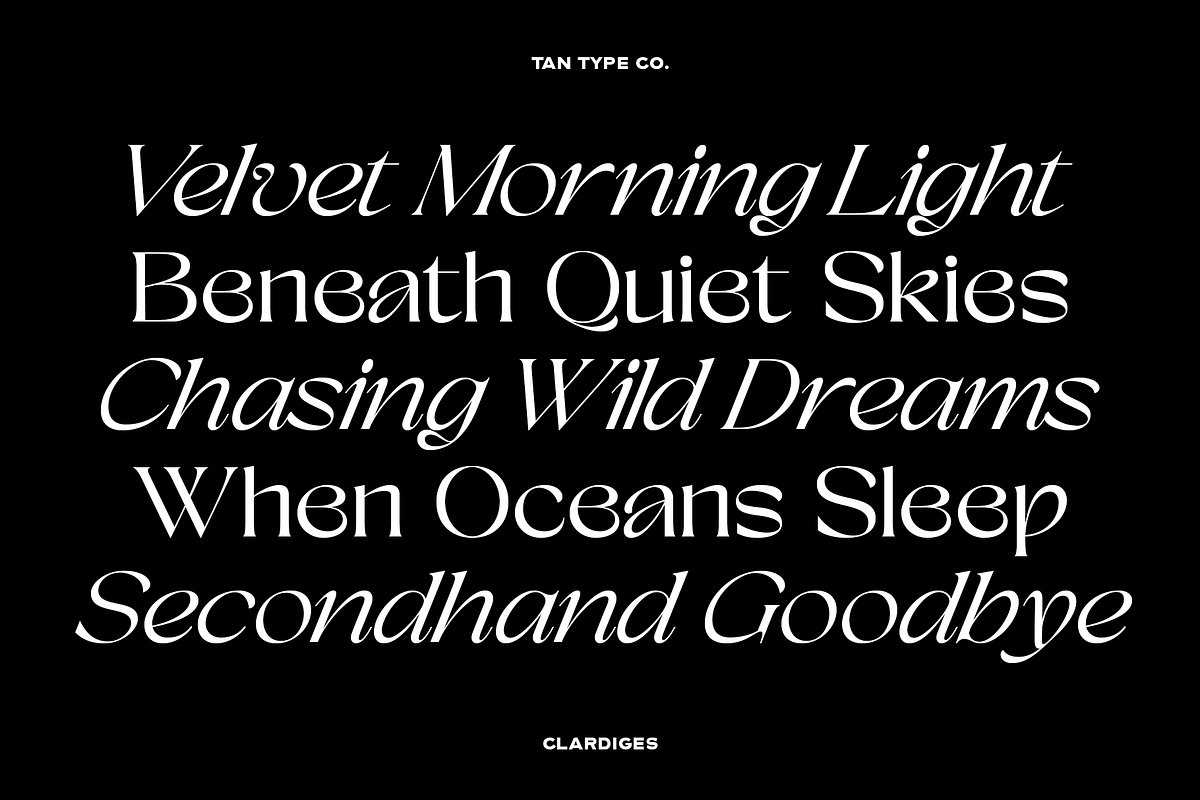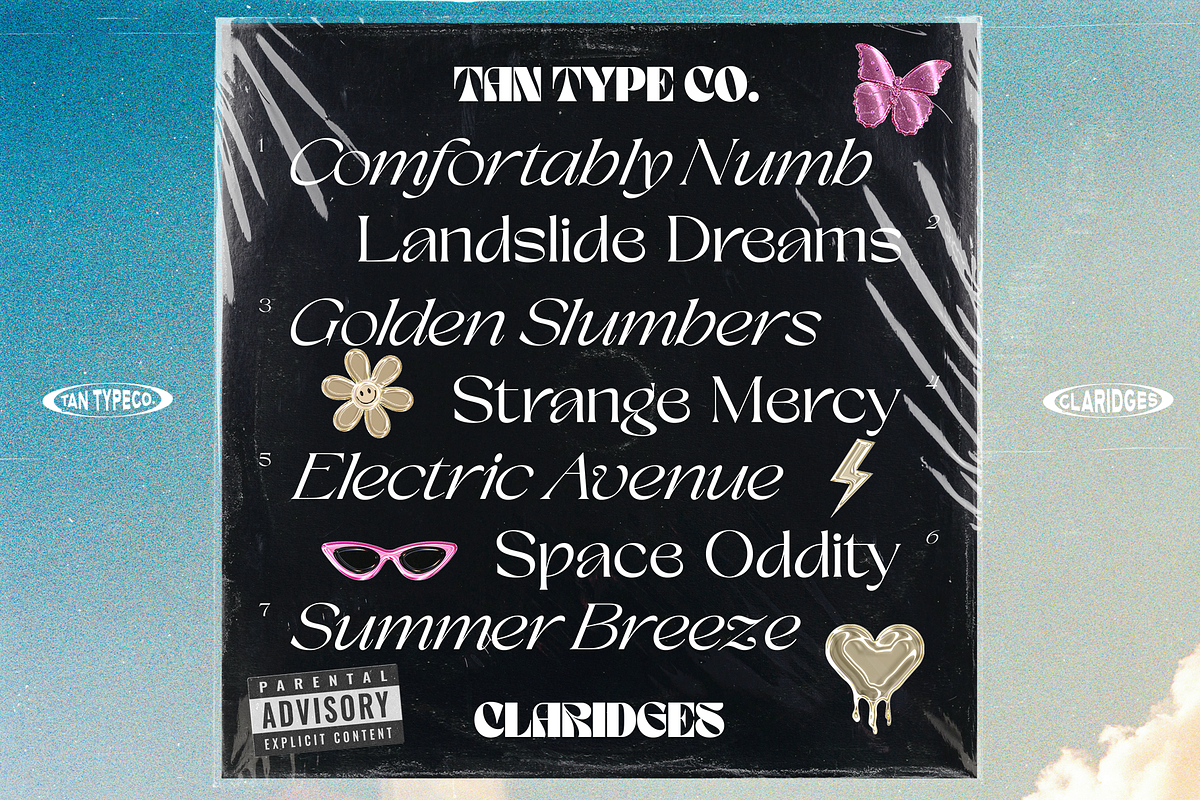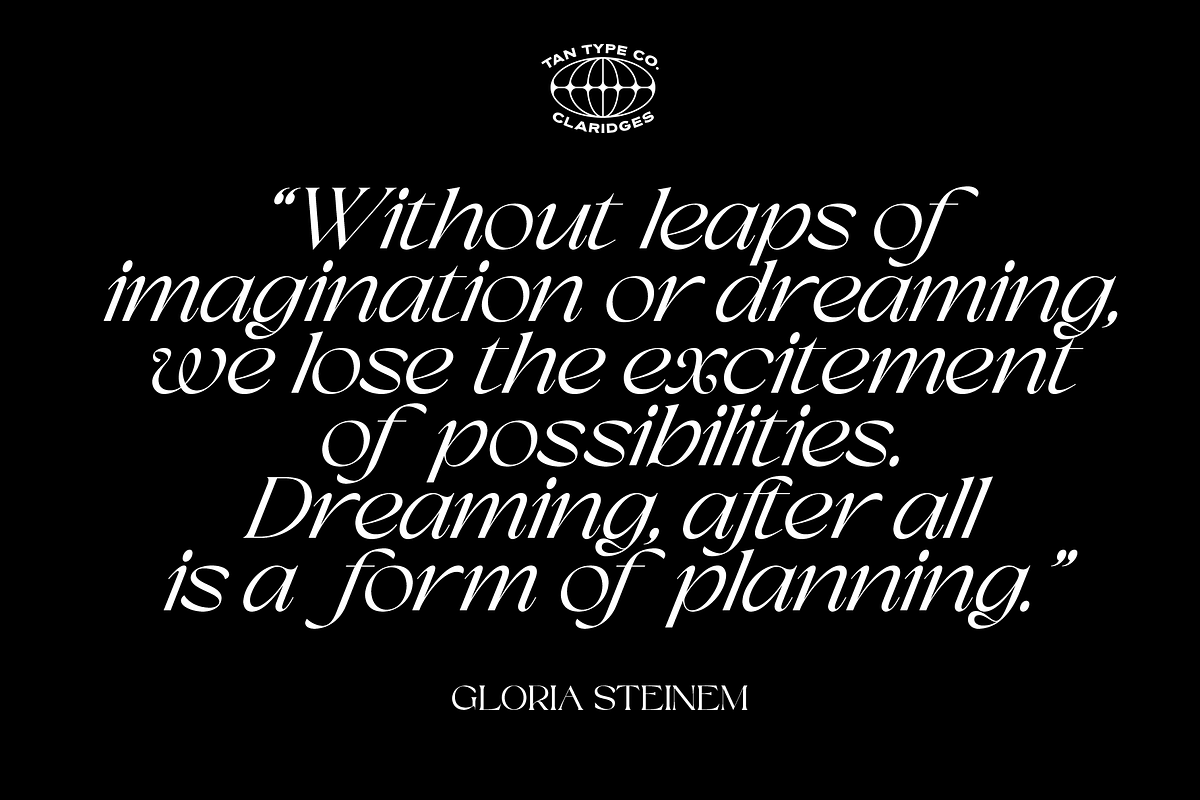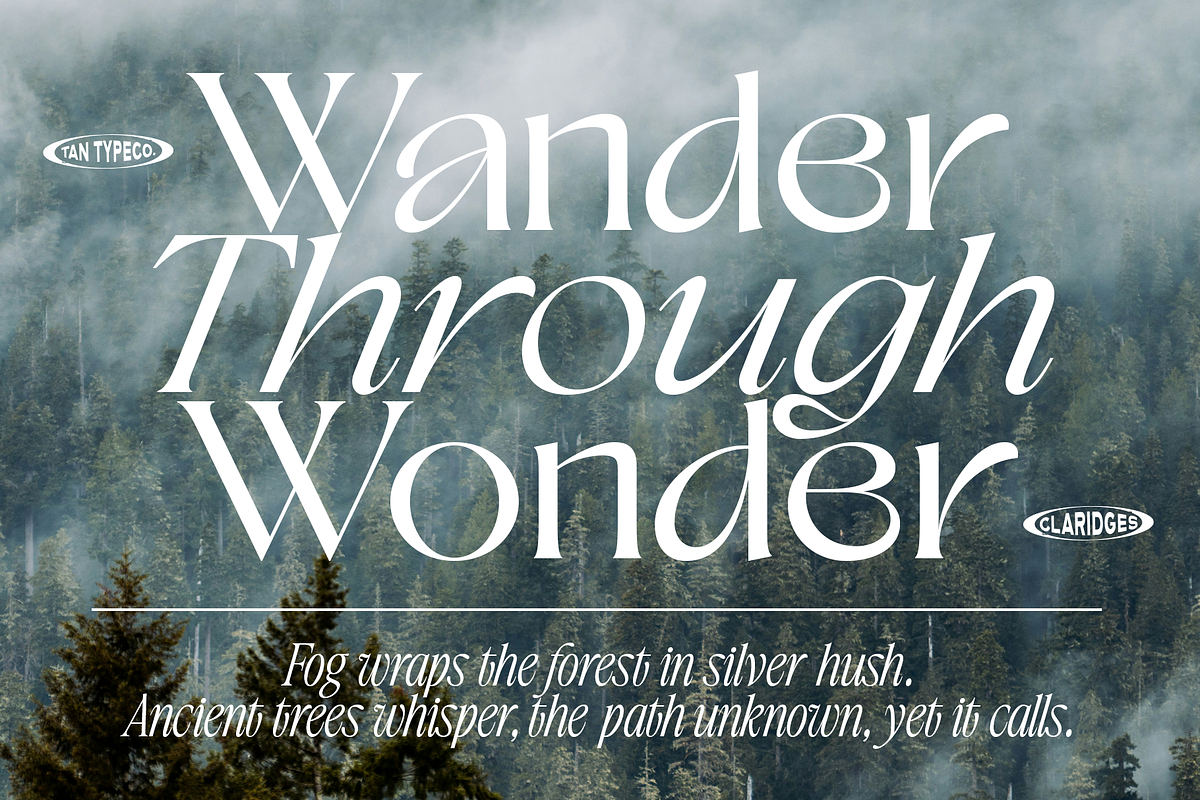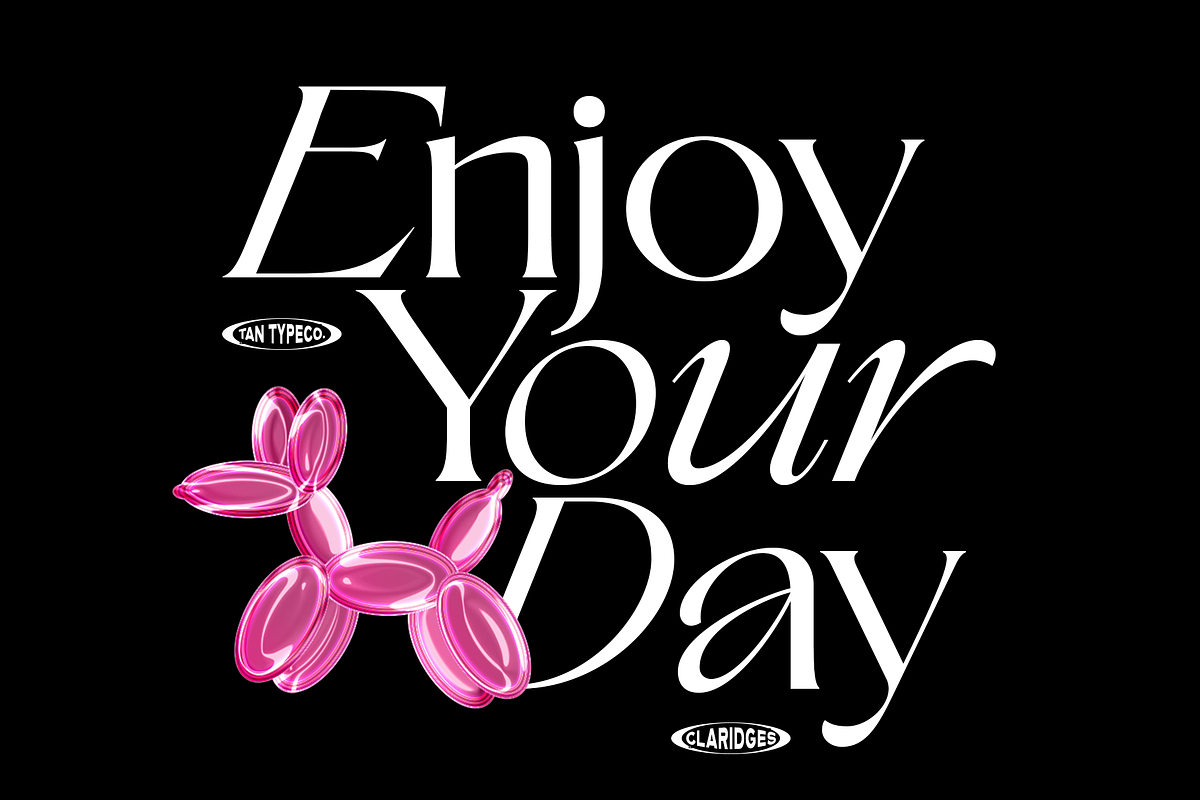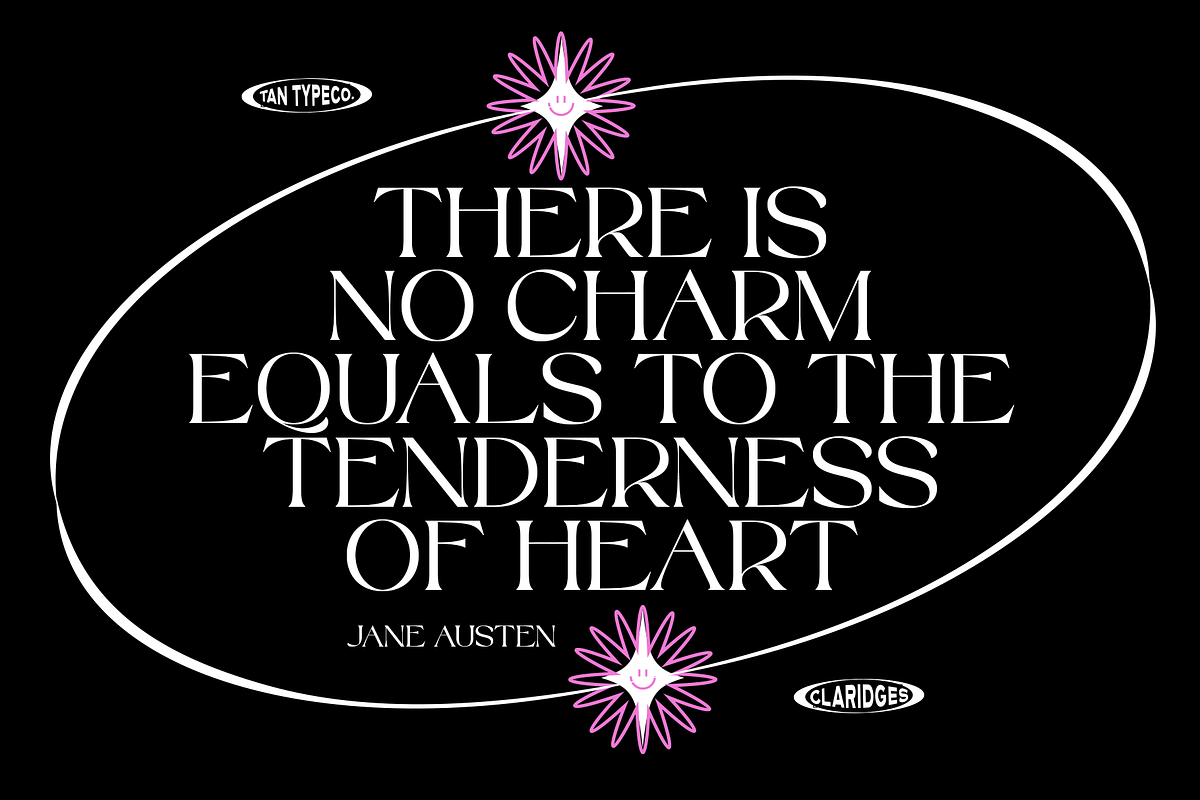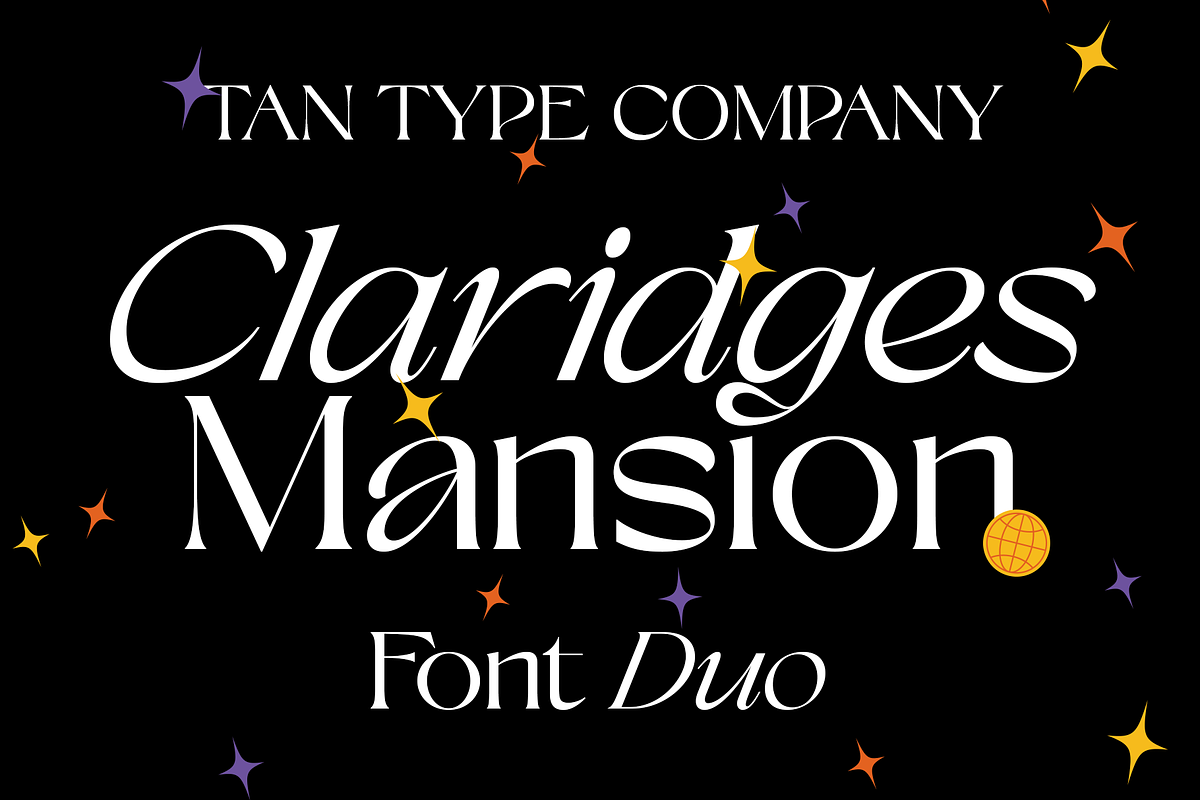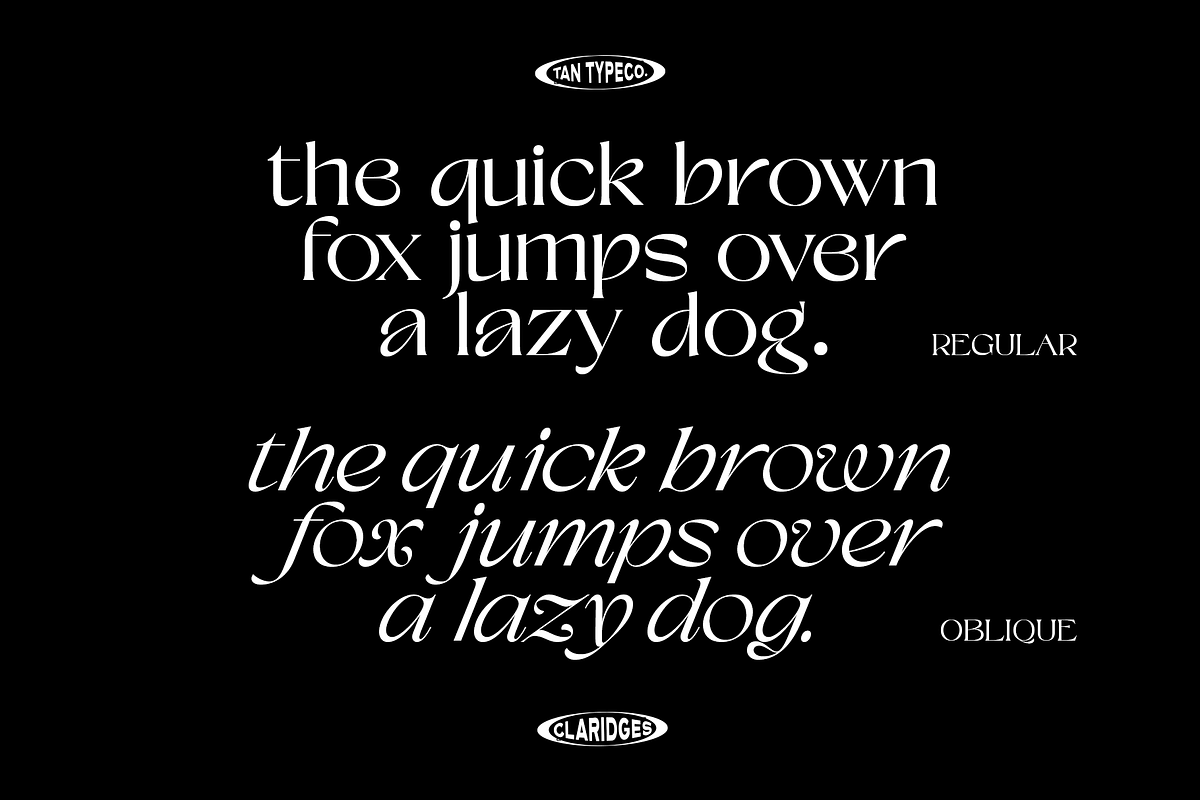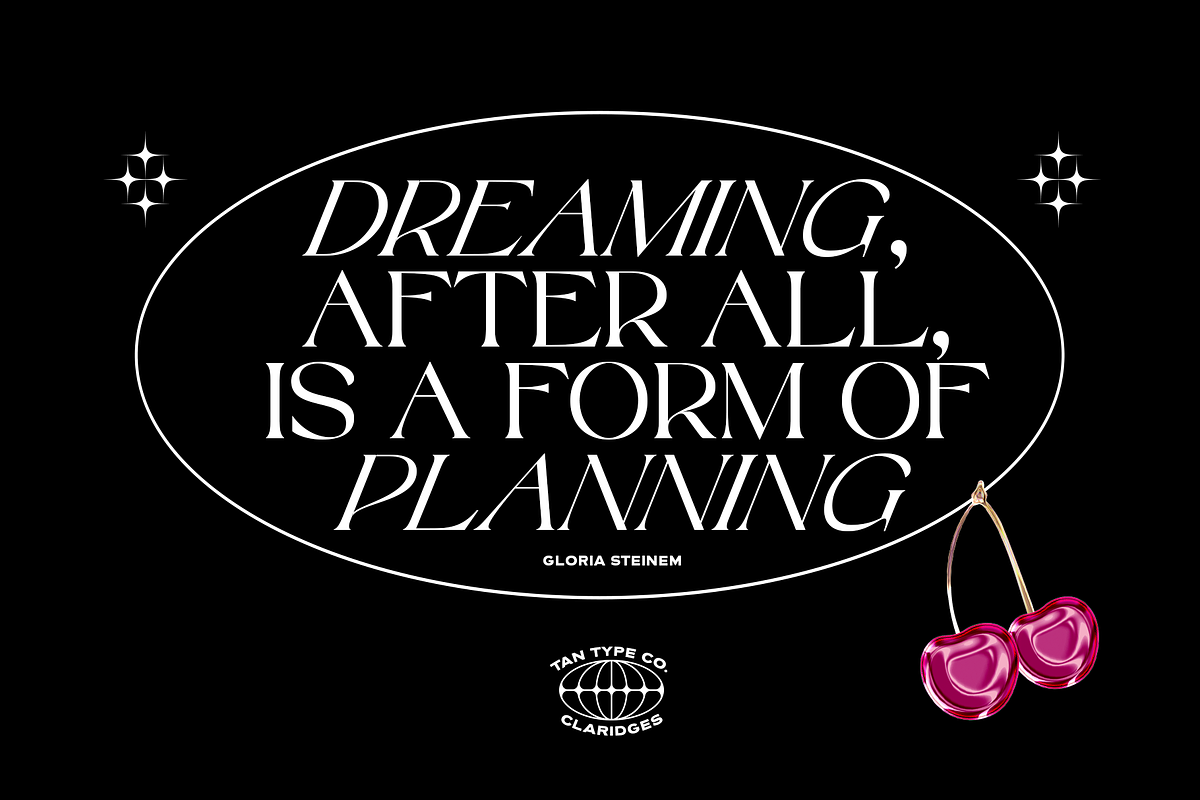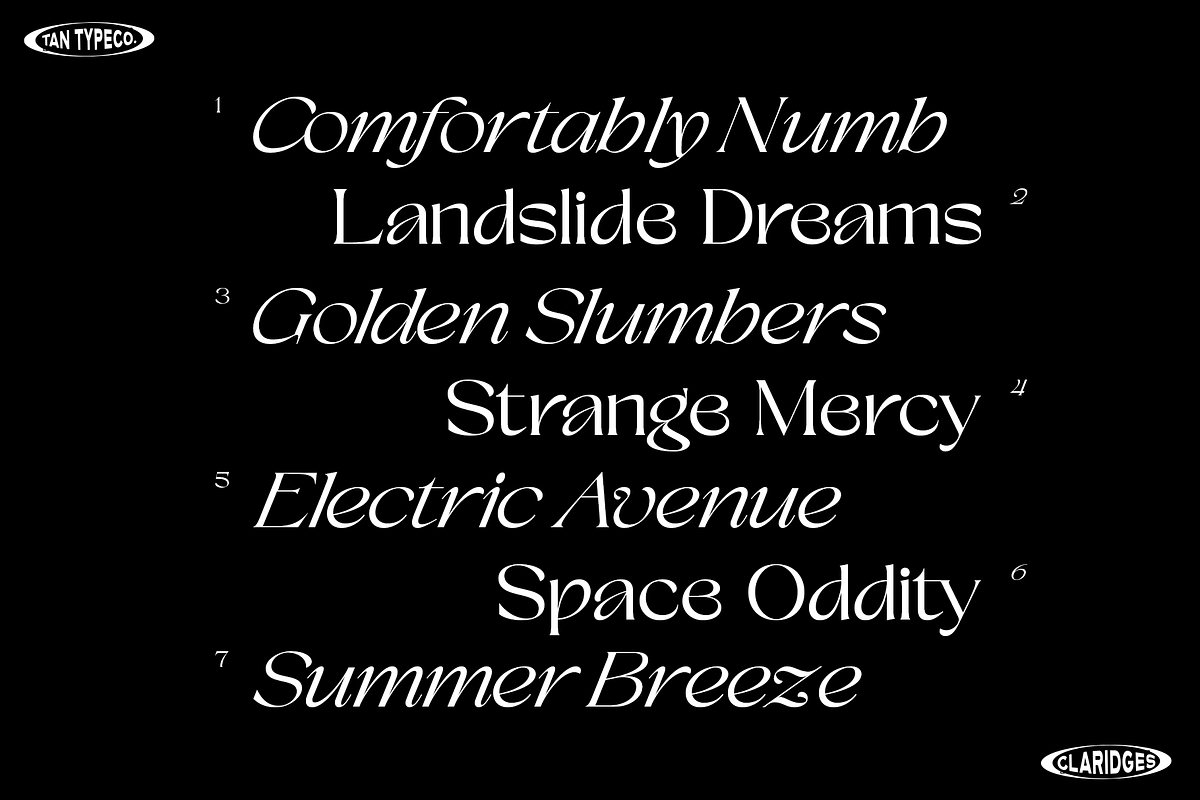
TAN - CLARIDGES
TAN - CLARIDGES is all about classic elegance. It’s the kind of typeface that feels timeless—clean, graceful, and just the right amount of fancy. The shapes are traditional, but not stiff, giving off that quiet confidence you get from something truly well-made. If you're going for a look that feels stylish, polished, and a little bit luxurious, Claridges brings that effortless charm.